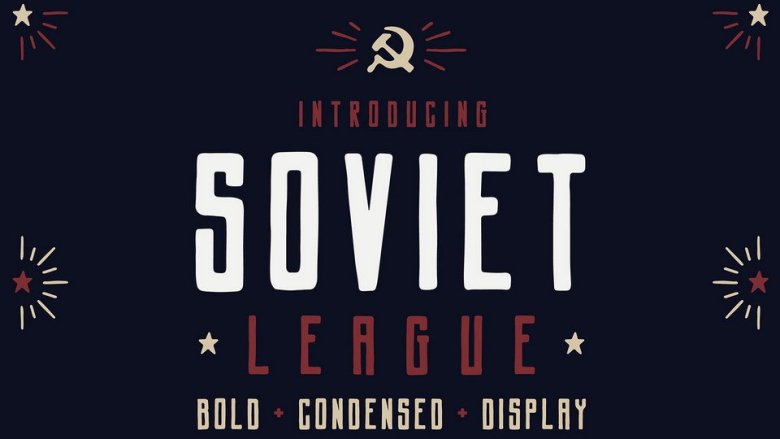
Soviet League Typeface
Soviet League Font – is a unique typeface for headlines, big text, branding, logotypes & display usage. It is designed and shared by Phil MacIsaac. SovietLeague Typeface is versatile and perfect for any design (Logo Design, Sports Design, Team Brand Identities, Video Editing, Jersey Design, Flyers, Posters, Headlines, Performance Products, etc.)